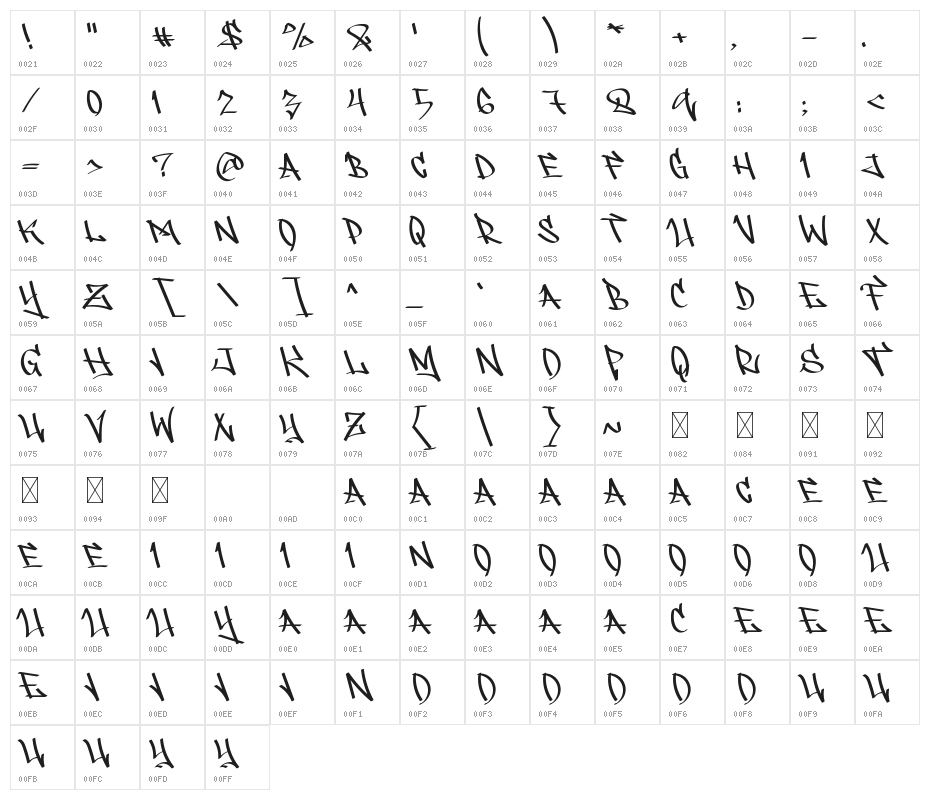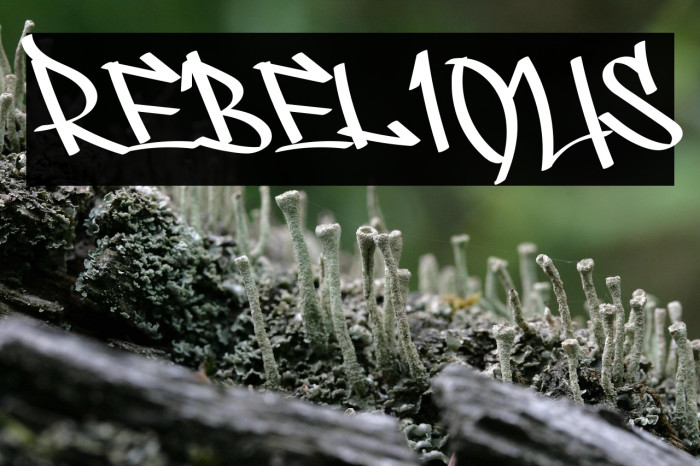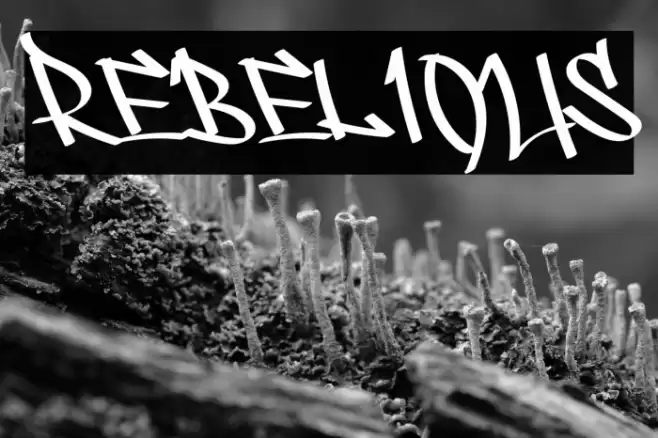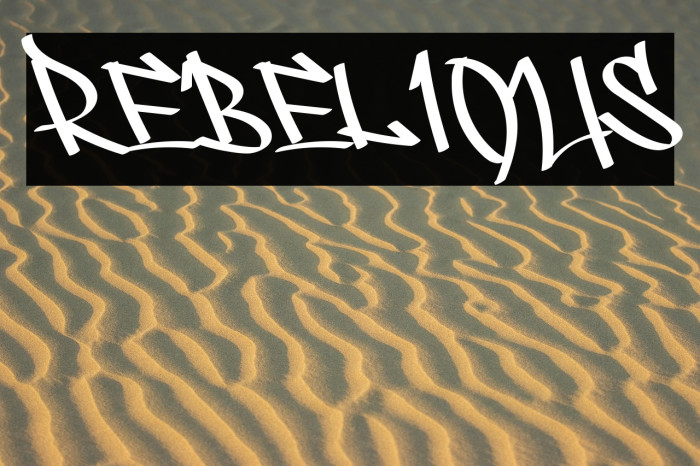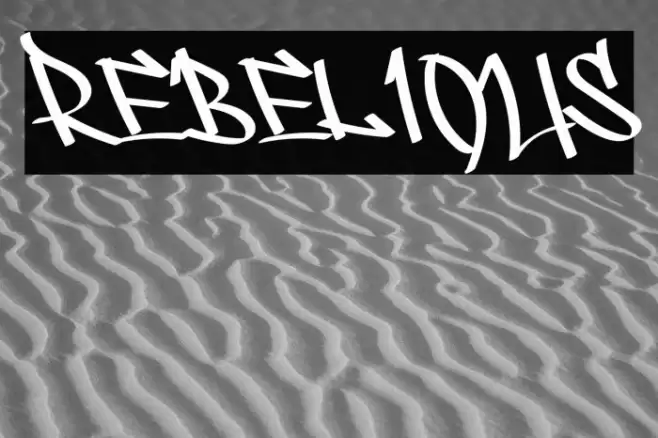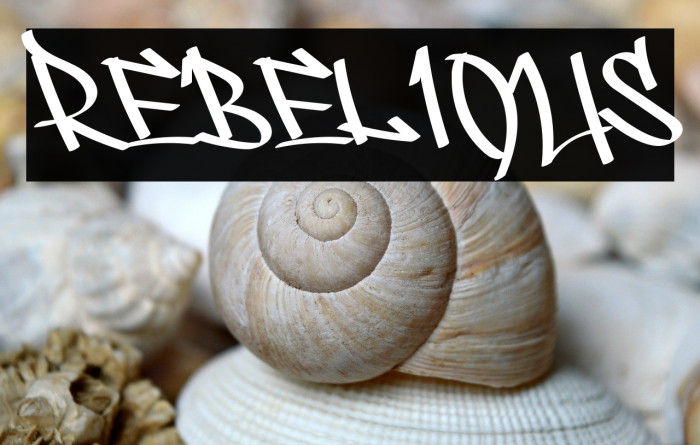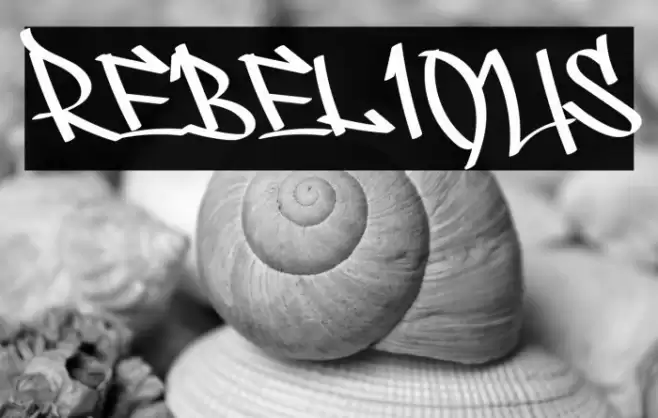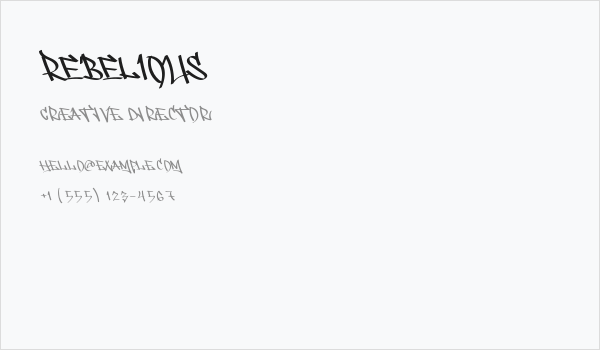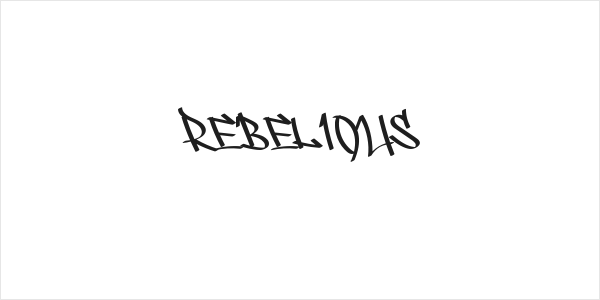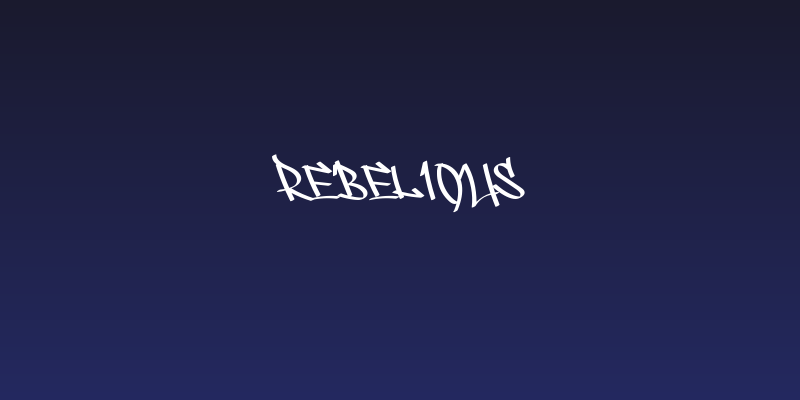
REBELIOUS Font
REBELIOUS Description
This font exudes a bold and rebellious spirit, characterized by sharp, angular strokes and a dynamic, graffiti-inspired style. The letters are crafted with a sense of movement and energy, giving them a unique, edgy appearance. The uppercase and lowercase letters maintain a consistent style, with exaggerated angles and a slightly chaotic arrangement that adds to its street art aesthetic. The numbers and special characters follow the same design principles, ensuring a cohesive look across all elements. This font is perfect for projects that aim to capture an urban, youthful vibe.
| Overall Style | Modern, Urban, Edgy |
| Proposed Projects | Ideal for street art designs, music album covers, urban-themed posters, and edgy branding projects. |